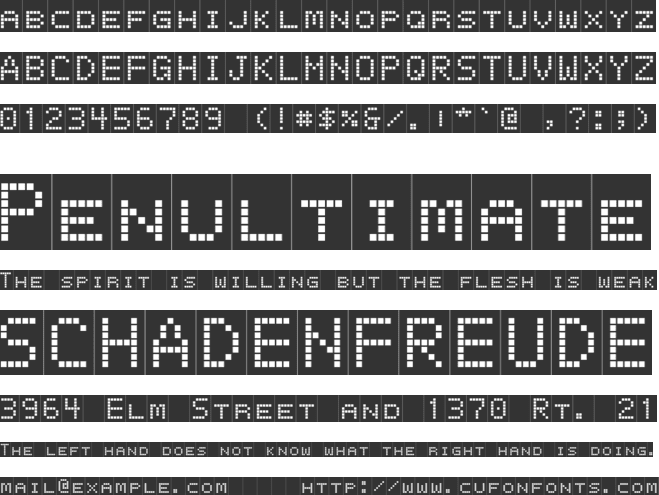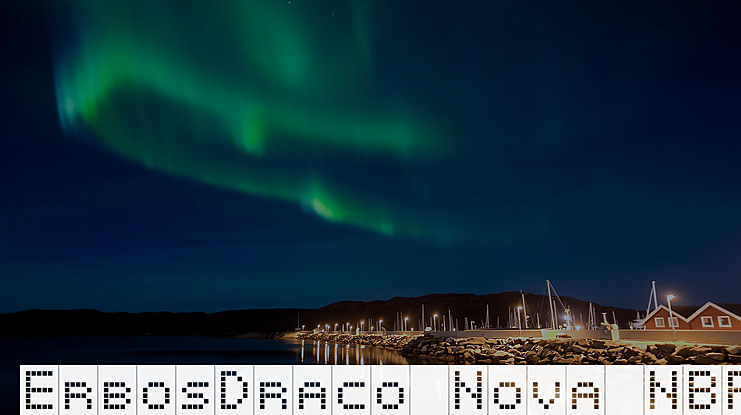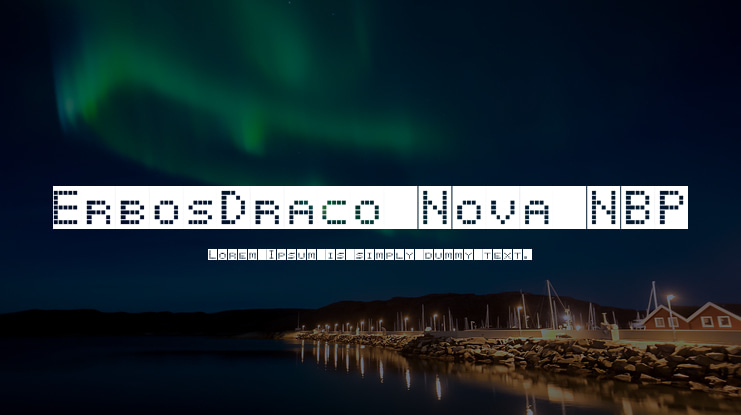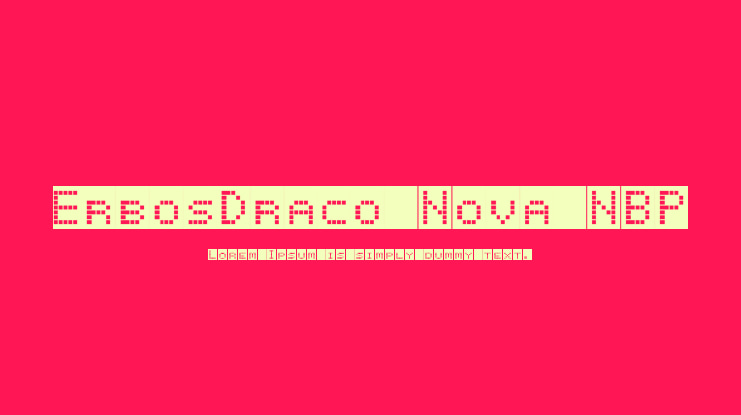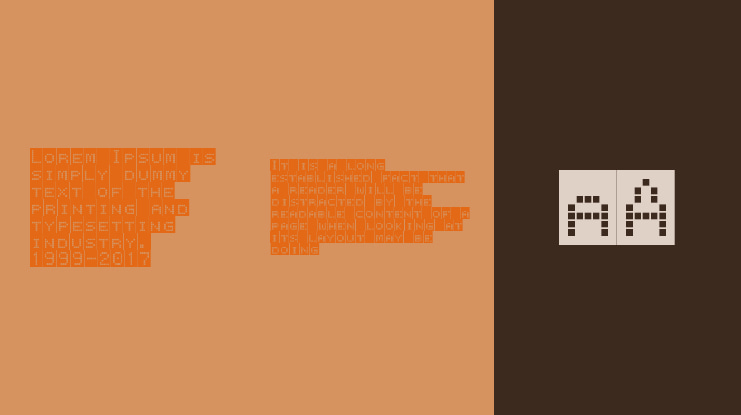
ErbosDraco Nova NBP Font Family
A near-total redesign of Erbos Draco Monospaced with smallcaps. Still monospaced though.
For a more traditional scoreboard look try Erbos Draco Monospaced!